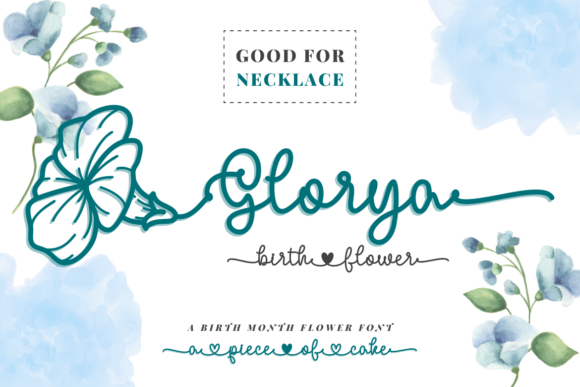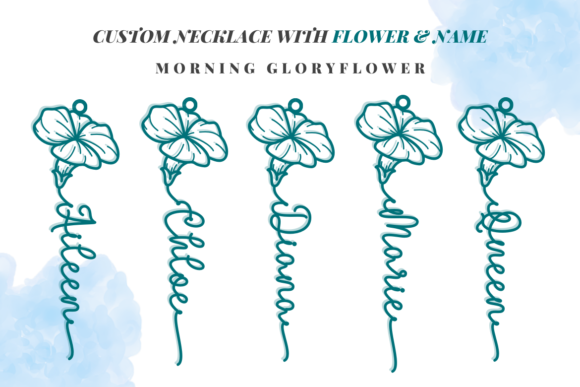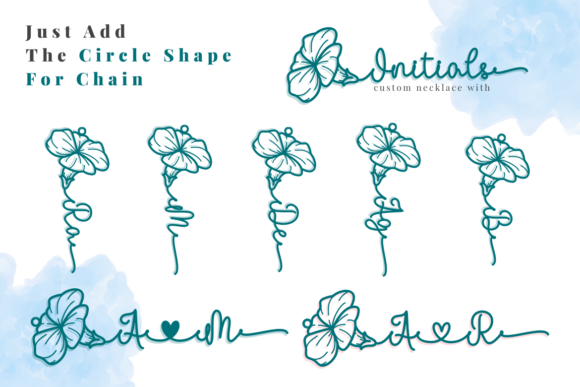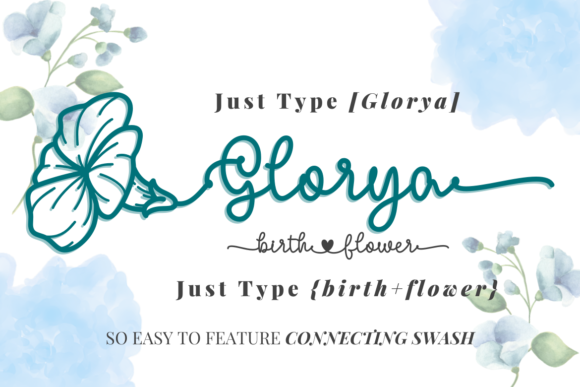
Glorya Birth Flower Font
About the Glorya Birth Flower Font
Make a bold statement with Glorya Birth Flower Font, a powerful and memorable font. Glorya Birth Flower is a vintage styled script font carefully created with a touch of elegance. Whether you’re looking for fonts for Instagram or calligraphy scripts for DIY projects, this font will turn any creative idea into a true piece of art!
September birth flower
Glorya Birth Flower excels in applications requiring a touch of vintage elegance, such as wedding invitations, greeting cards, or logos for boutique brands. Its delicate flourishes are ideal for short headlines and signatures, adding a sophisticated charm to packaging designs. However, its ornate nature makes it unsuitable for body text or UI elements where legibility is paramount. Extended use would hinder readability.
The overall personality of Glorya Birth Flower is refined and romantic, projecting a sense of timeless elegance and subtle sophistication. It’s best suited for brands and projects aiming for a classic, yet charming aesthetic.